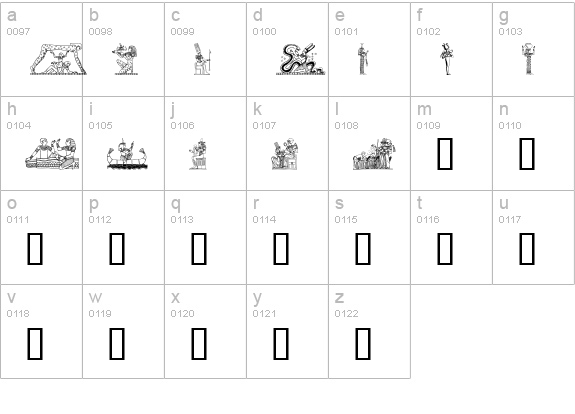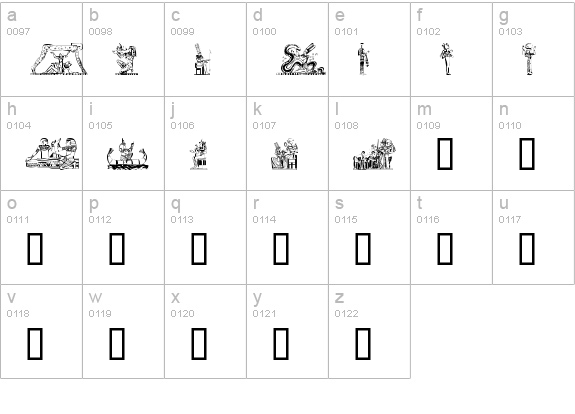
Egypt Font Details
Introducing Egypt font - a captivating typeface that exudes elegance and sophistication. With its unique blend of modern and classic elements, Egypt font is perfect for adding a touch of luxury to your designs. The intricate details and sharp edges of this font make it stand out, while still maintaining a sense of timelessness. And the best part? Egypt font is available for free download at FontsMarket.com. That's right - you can enhance your projects with this stunning font without having to spend a dime. Whether you're working on a branding project, website design, or any other creative endeavor, Egypt font is sure to elevate your work to the next level. Download it today and start creating beautiful designs with this exquisite typeface.